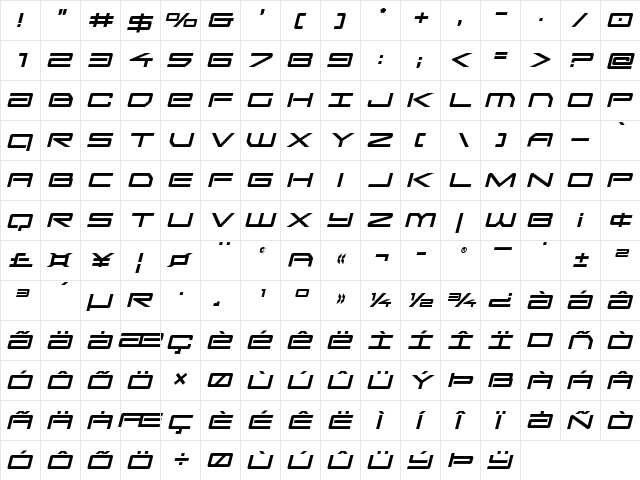
Sky Ridge Italic Regular
Design Context for Sky Ridge Italic Typeface
Sky Ridge Italic offers clean, dependable letterforms without strong stylistic allegiance, making it a practical choice for designers who need flexibility. The dynamic lean of this cut emphasises speed and emphasis in any layout.
Pro Tip: Use Sky Ridge Italic for emphasis, pull quotes, and subheadings where its slanted energy can add rhythm to the layout.